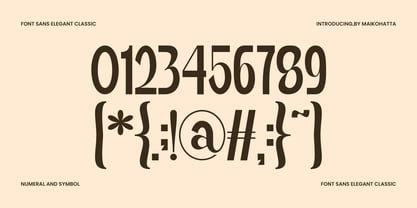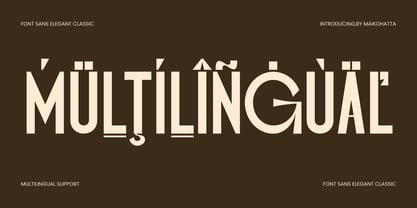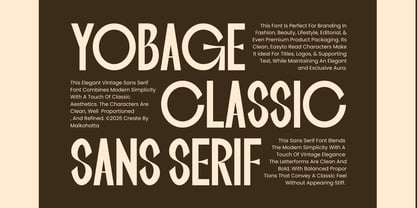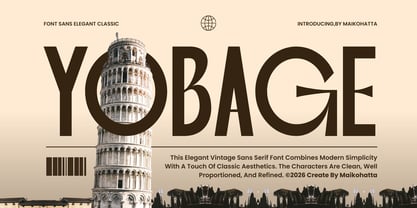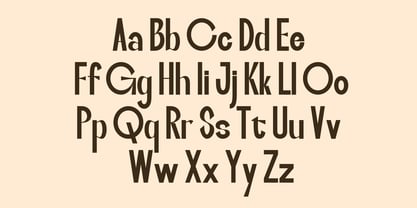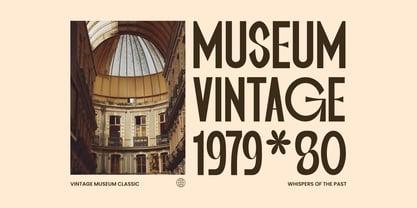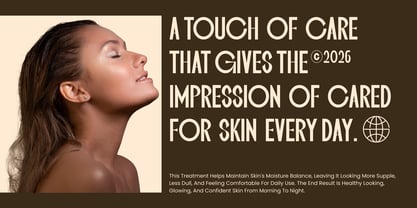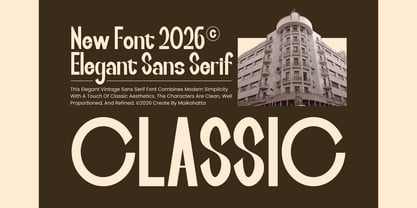
Yobage
Die Schriftfamilie Yobage wurde von Gilang Ternadho entworfen und von Maikohatta veröffentlicht. Yobage enthält 1 Stile. Mehr über diese Familie
Introducing our new product Yobage – Elegant Sans Serif Font Yobage is an elegant classic sans serif font that blends modern simplicity with timeless vintage aesthetics. Designed with clean shapes and well-balanced proportions, this font delivers a refined and professional look across various design needs. Perfect for branding, editorial layouts, logos, packaging, posters, fashion designs, magazines, and social media graphics, Yobage brings a sophisticated yet versatile character to your typography. Its clear readability and stylish presence make it suitable for both display and text usage, giving designers flexibility while maintaining a visual appeal.
Designer: Gilang Ternadho
Foundry: Maikohatta